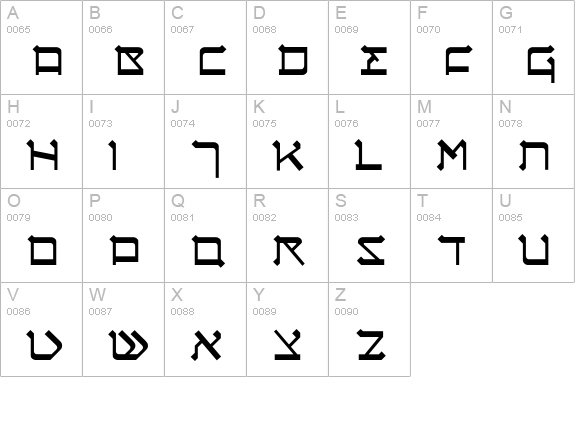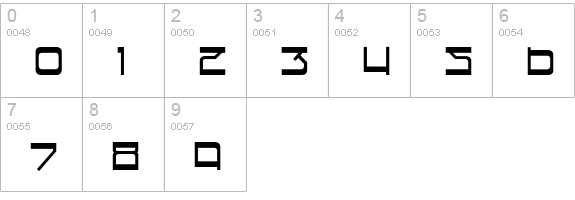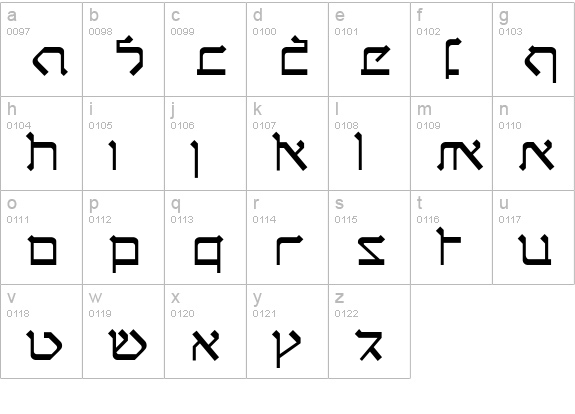
Circumcision-Regular Font Details
Circumcision-Regular is the standard, neutral variant in the Circumcision typeface family \xE2\x80\x94 well suited to general body text, paragraphs, and standard typographic work.
Circumcision-Regular font is a modern and versatile typeface that exudes elegance and sophistication. Its sleek lines and clean design make it perfect for a wide range of projects, from branding to editorial design. The font features a balanced combination of classic and contemporary elements, giving it a timeless appeal. With its regular weight, Circumcision-Regular is ideal for body text and headings alike. Best of all, Circumcision-Regular font is available for free download at FontsMarket.com. Whether you're a designer looking to add a touch of class to your work or a writer seeking a stylish font for your documents, Circumcision-Regular is the perfect choice. Don't miss out on this fantastic opportunity to enhance your projects with this beautiful typeface. Download Circumcision-Regular today and elevate your designs to the next level!